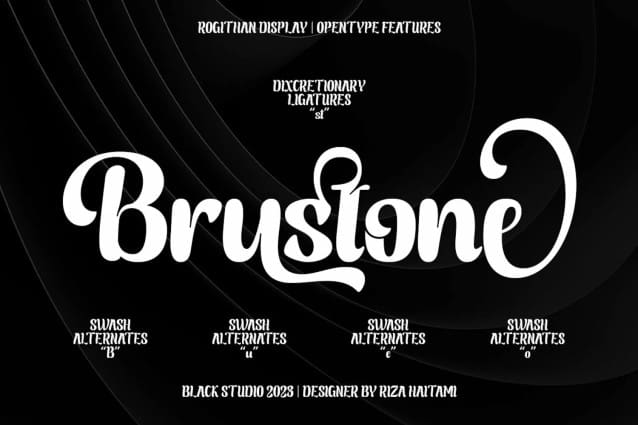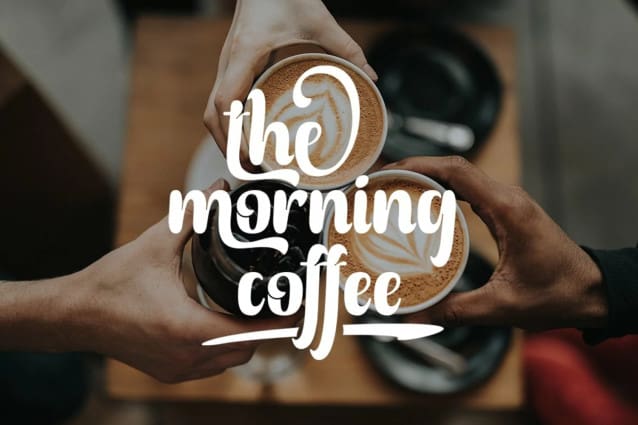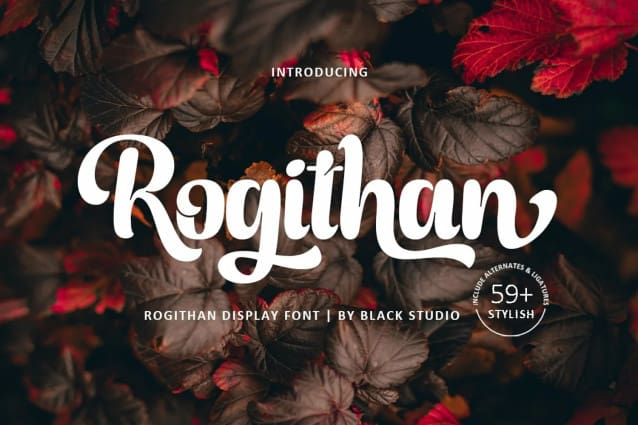
Rogithan Script Font
Rogithan Script Font is a typeface crafted with elegance and luxury, exuding femininity and glamor but also a side of beauty with plenty of alternatives and ties to help you create endless variations for your creative needs.
Its striking contrasts and subtle details, along with luxurious strokes and voluptuous curves, create a beautiful and powerful statement for any typographic composition, blending glamor with contemporary aesthetics.
Rogithan really help you create unlimited variations for your creative needs in creating your project titles: such as fashion, magazines, logos, branding, photography, invitations, wedding invitations, quotes, blog headers, posters, advertisements, postcards, books , websites, Logotype, Letterhead, Apparel Design, Label and etc.